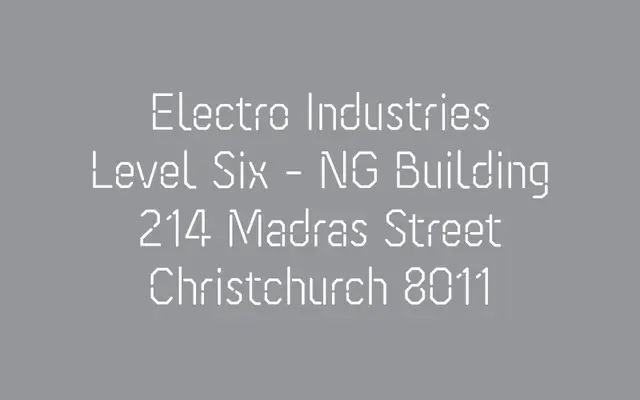
Ossature
A single-weight stencil face with squared geometry and softened corners, conceived for discreet signage in industrial building contexts.
Designed by Romain Bergaentzlé of studio OOII, Ossature draws on industrial renovation projects to produce a stencil typeface suited to understated signage systems. The squared shapes and rounded corners give it a considered, architecturally informed quality rather than the aggressive military stencil vernacular. With a glyph count of 229, it covers a broad range of Latin-script languages including most of Western and Central Africa.
Classified as a modern stencil typeface by the foundry; its squared forms with rounded corners and industrial signage origins place it firmly in the display/stencil category.